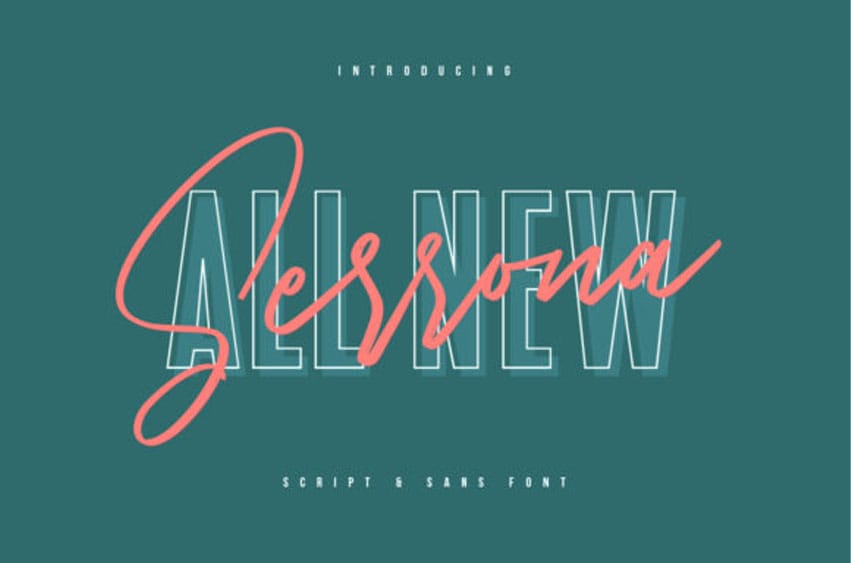
Serrona Duo Font is a fancy duo font. It has 3 great styles: script, sans serif and sans serif outline.
Combine these amazing fonts and create gorgeous wedding invitations, beautiful stationary art, eye-catching social media posts, and cute greeting cards.